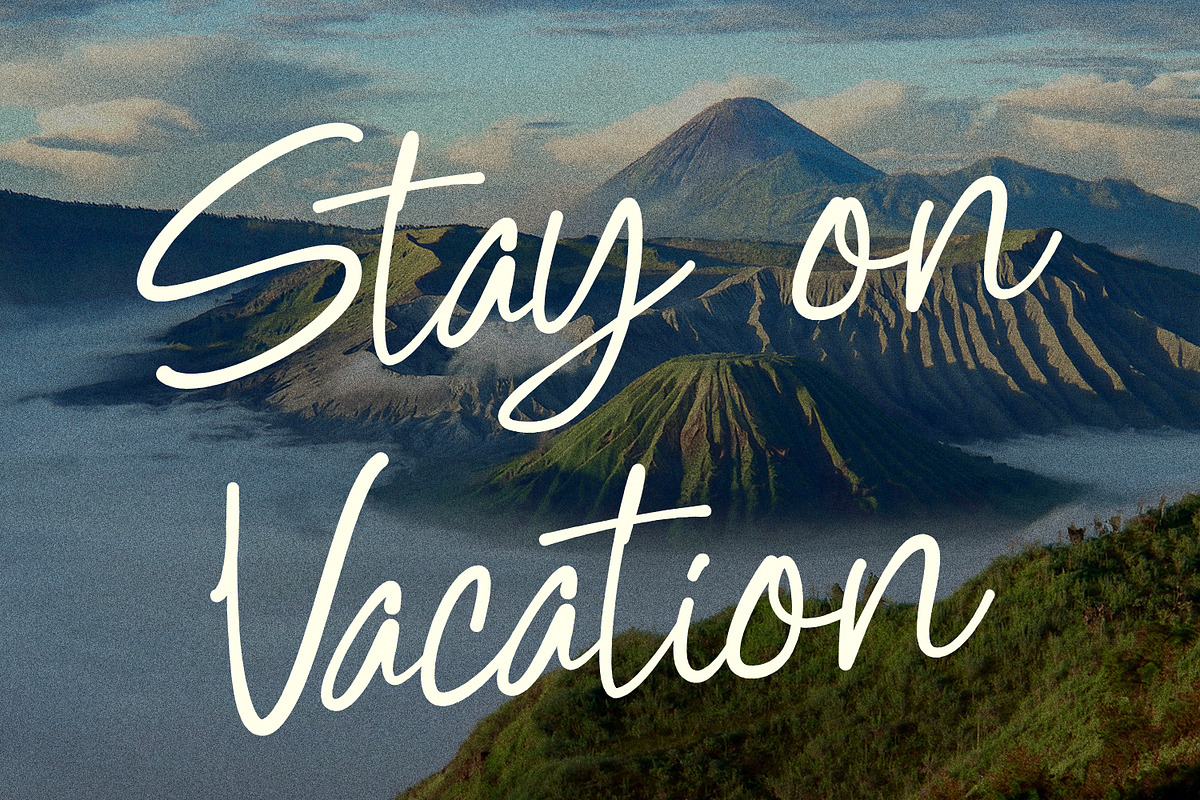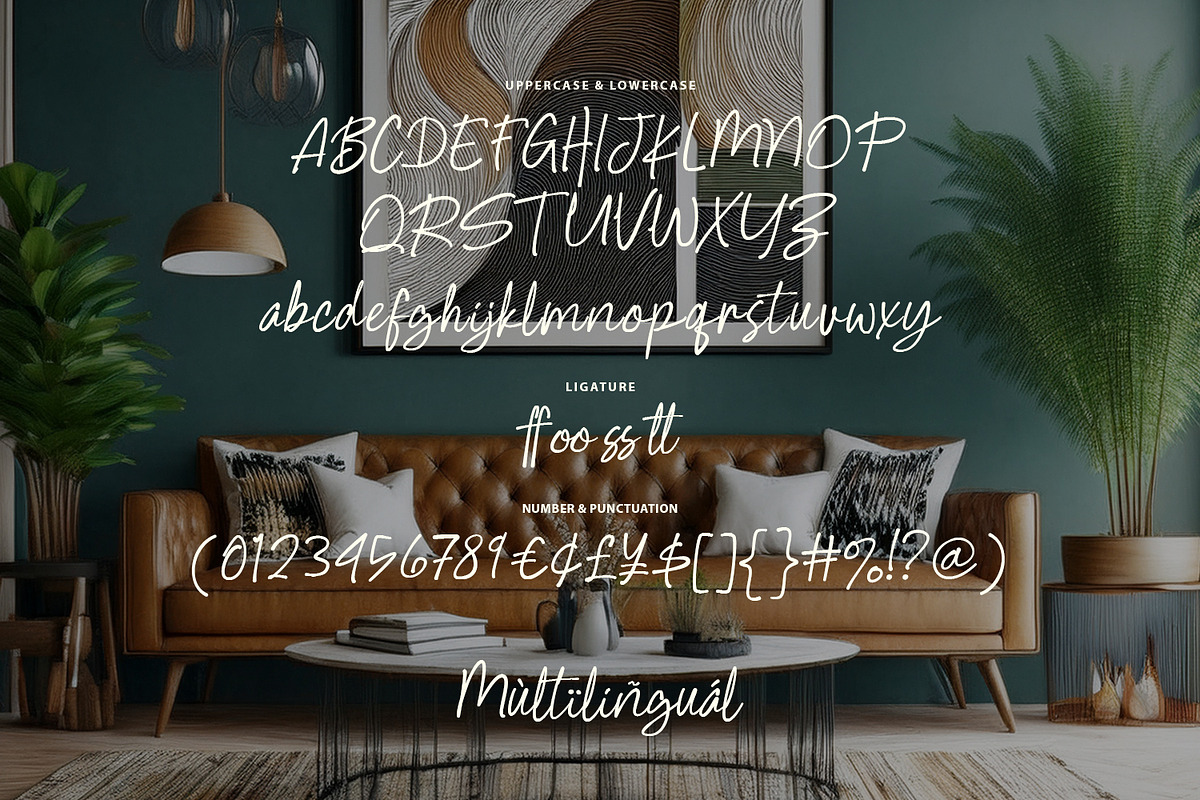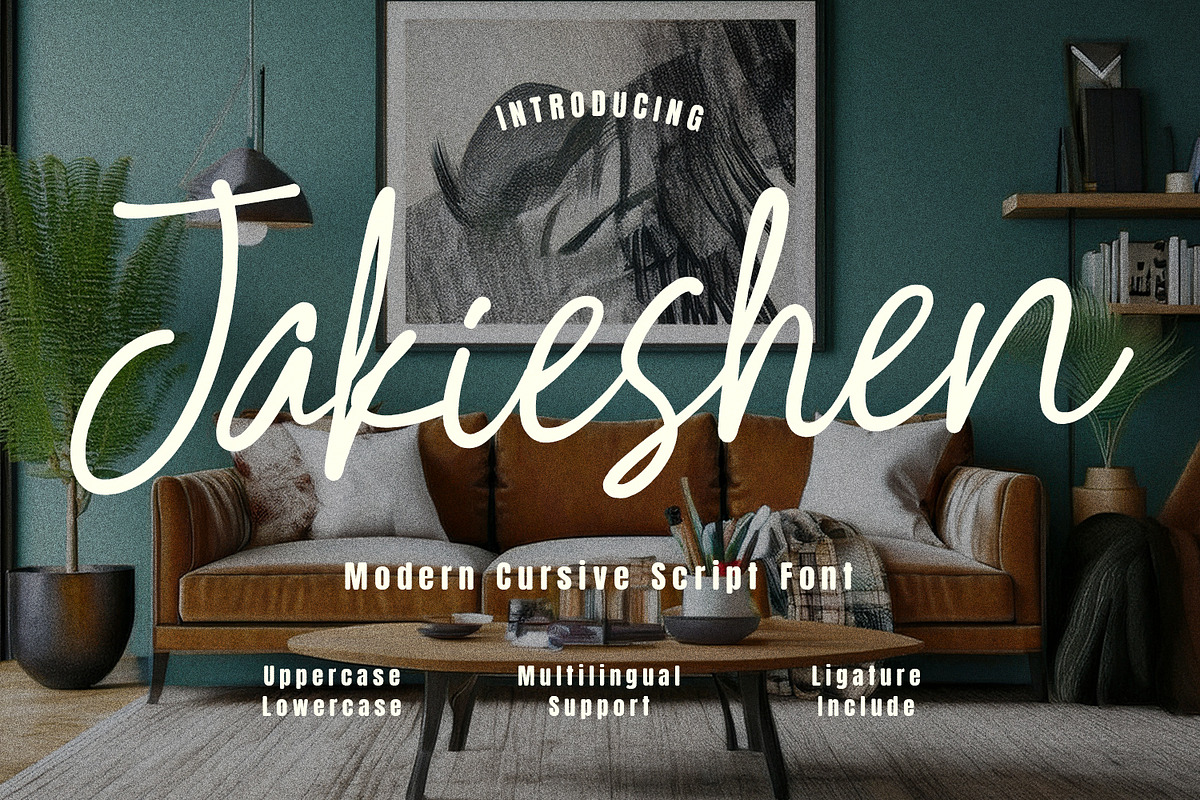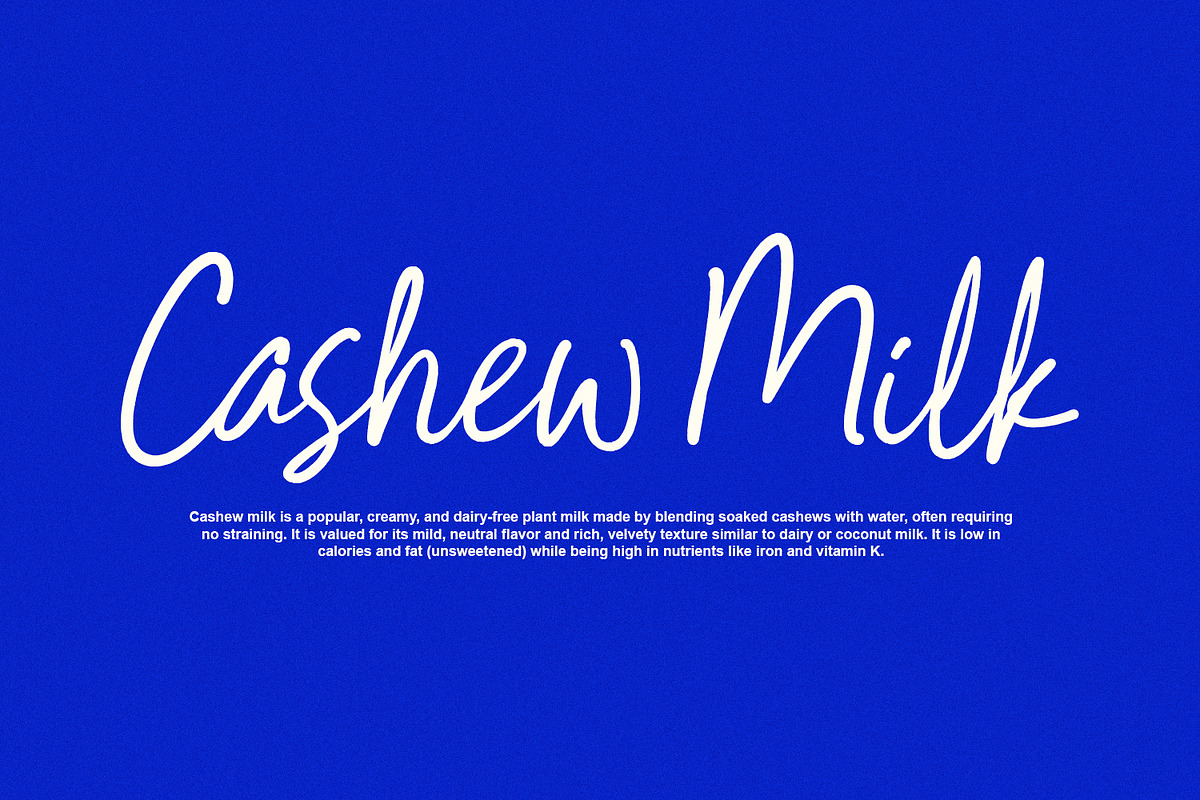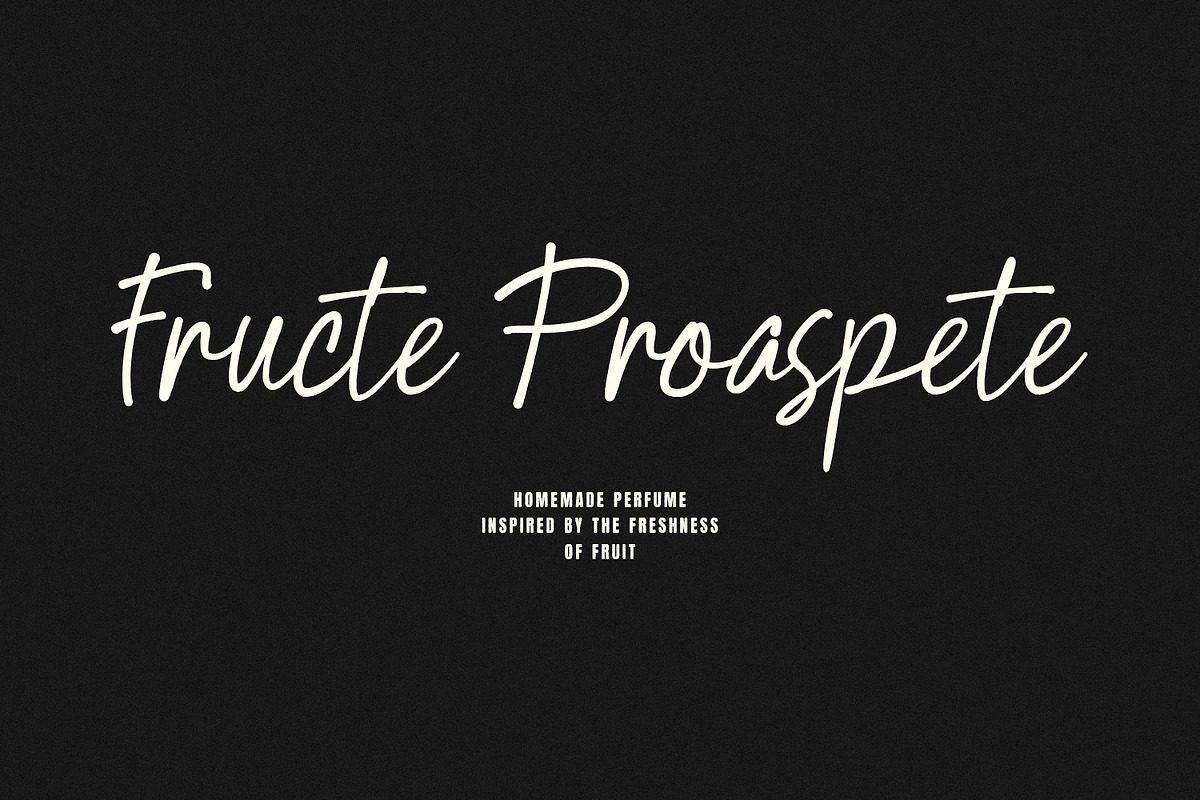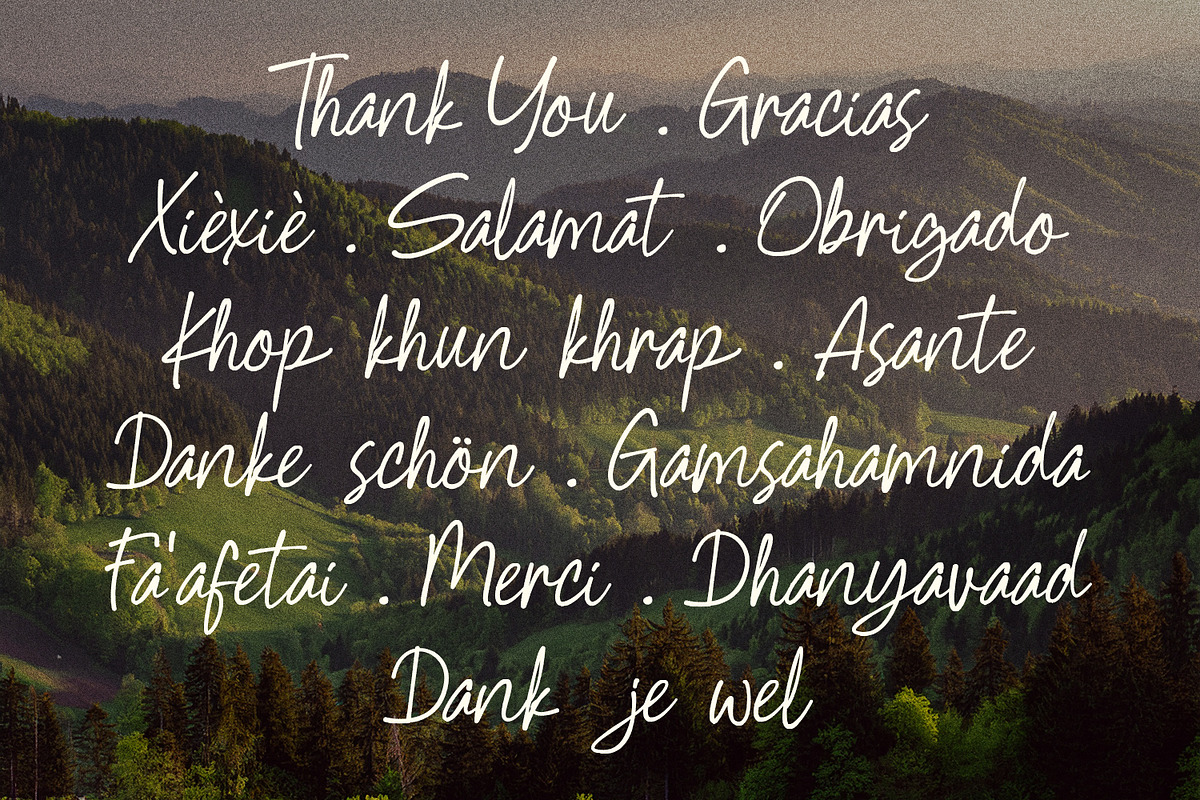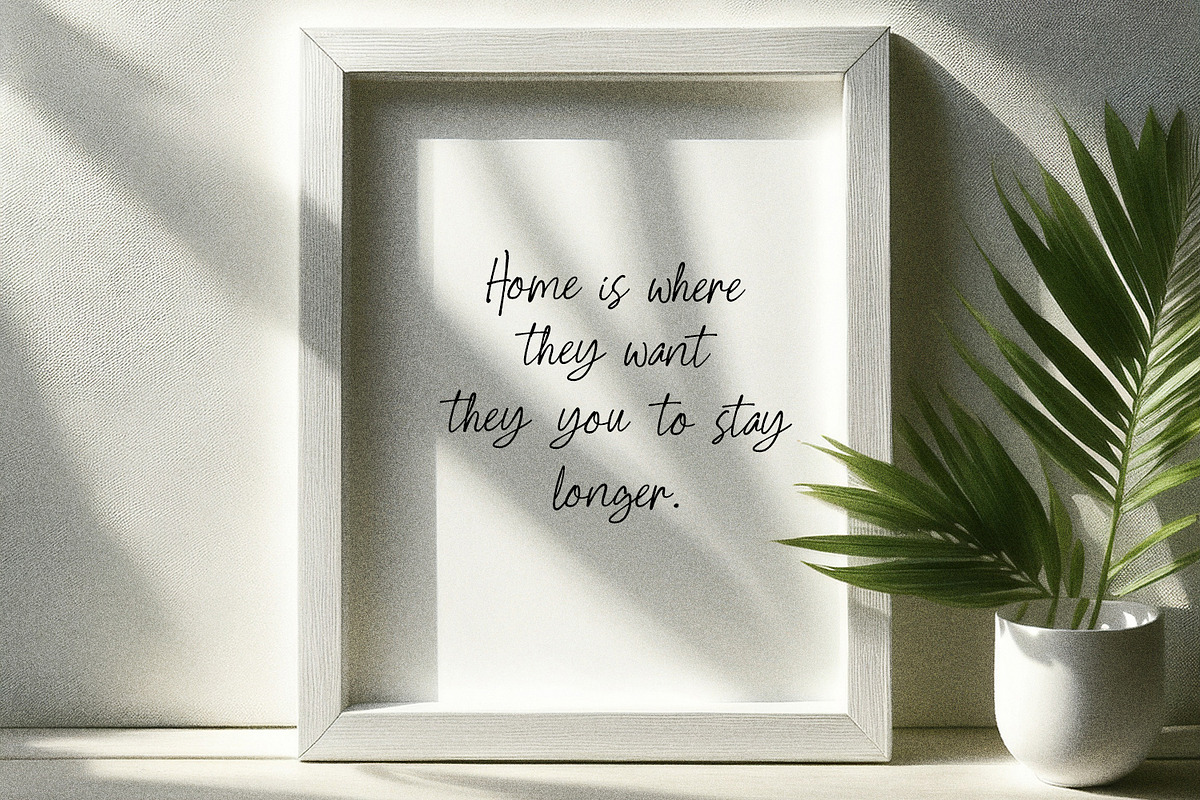
Jakieshen Modern Cursive Script Font
Jakieshen is a modern cursive script font designed with smooth, flowing strokes that capture the essence of organic handwritten lettering. Featuring a complete set of uppercase and lowercase letters, numerals, punctuation, ligatures, and extensive multilingual support, this typeface provides versatility across diverse creative projects. Its clean connections and natural rhythm deliver an elegant, effortless aesthetic suitable for high-end branding, package design, digital media, and sophisticated editorial layouts.
Crafted to bring warmth and stylish charm to visual compositions, Jakieshen seamlessly blends contemporary design trends with classic cursive movement. The subtle variations in letterforms create an authentic handwriting feel while maintaining strong legibility across various screen displays and visual mediums. Ideal for logo creation, greeting card concepts, invitation suites, and digital advertising, this font enhances creative assets with a refined visual appeal.
- Full character set (Uppercase & Lowercase)
- Numbers, Punctuation, and Symbols
- Ligatures for a natural handwriting flow